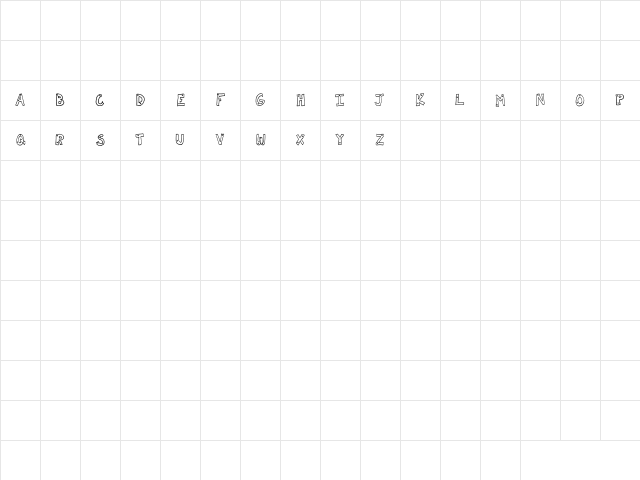
NewWGL4Font Regular
Designer: Adult Ramblings - Anastacia E. Zittel
Design Context for NewWGL4Font
NewWGL4Font is a composed and adaptable typeface that performs quietly and consistently across a wide range of design contexts.